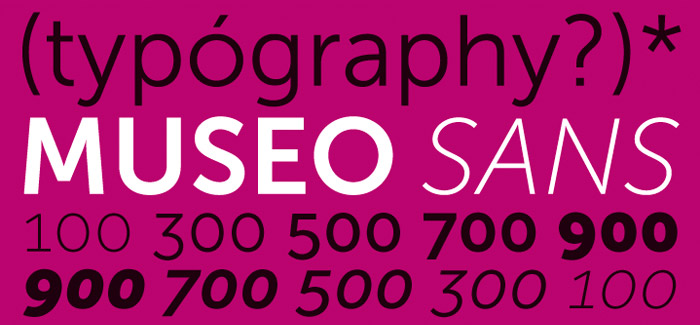
Museo Sans font
Museo Sans font is based on the well-known Museo. It is a sturdy, low contrast, geometric, highly legible sans serif typeface very well suited for any display and text use.
This OpenType font family offers also support for CE languages and even Esperanto. Besides ligatures, automatic fractions, proportional/tabular lining and old-style figures, numerators, denominators, superiors and inferiors Museo Sans font also has a ‘case’ feature for case sensitive forms.
This Museo Sans typeface comes in 10 fonts: five weights with italics. Fonts may contain more than 15 867 glyphs, unleashing very exciting typographic capabilities. Many nonstandard glyphs, such as oldstyle figures,true small caps, handy fractions, swashes, titling letters, contextual and stylisticalternates. OpenType simplifies font management and publishing workflow.